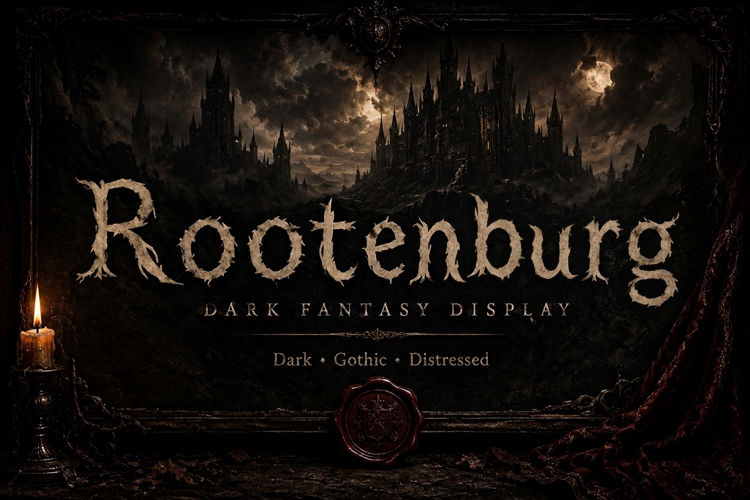
Rootenburg Font
Rootenberg Dark Fantasy Font - Premium Gothic display typeface with distressed textures
Unleash the power of darkness with Rootenberg, a professionally crafted dark fantasy display font that brings authentic gothic horror aesthetics to your creative projects. This premium typeface features intricately distressed letterforms inspired by ancient manuscripts, haunted castles, and medieval crypts.
Why Choose Rootenberg?
Unlike generic gothic fonts, Rootenberg offers genuine hand-crafted distressing that creates an authentic weathered appearance. Each letter features organic textures reminiscent of crumbling parchment and ancient stone inscriptions. The design balances historical accuracy with modern usability, ensuring your projects stand out while remaining legible.